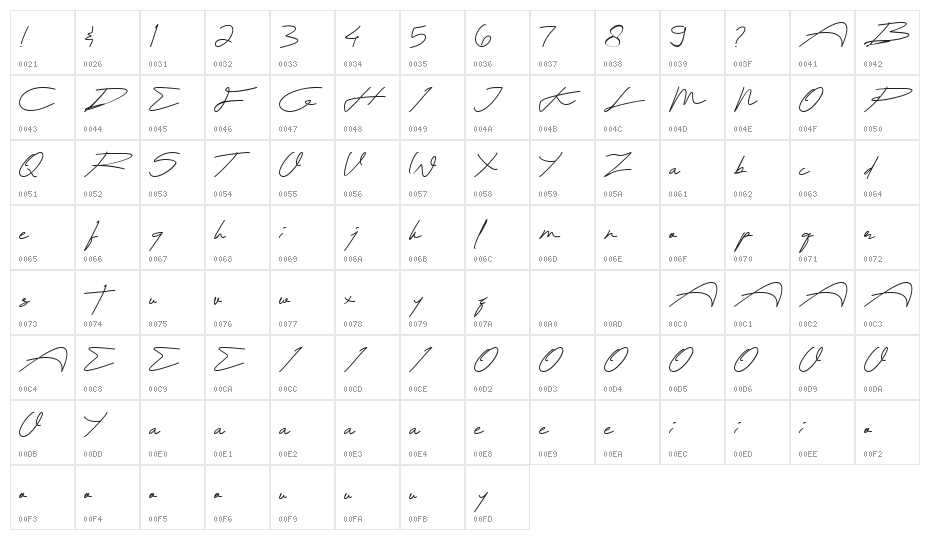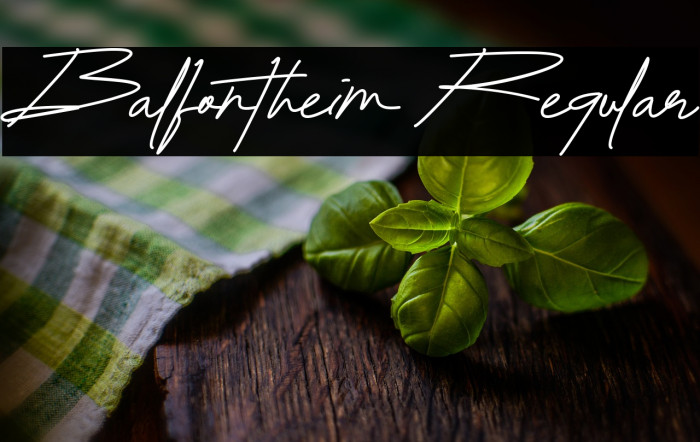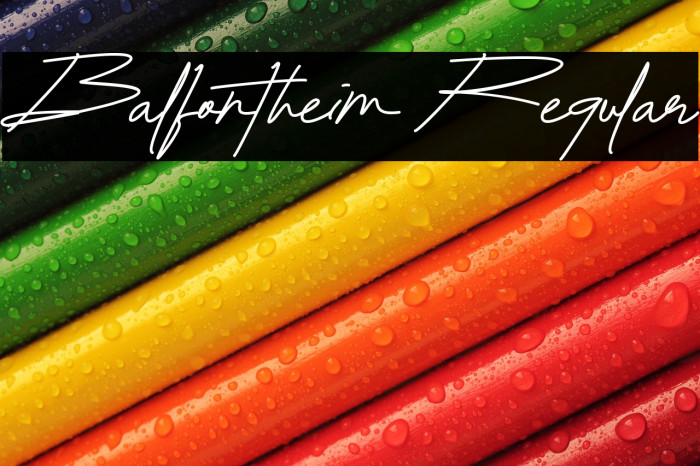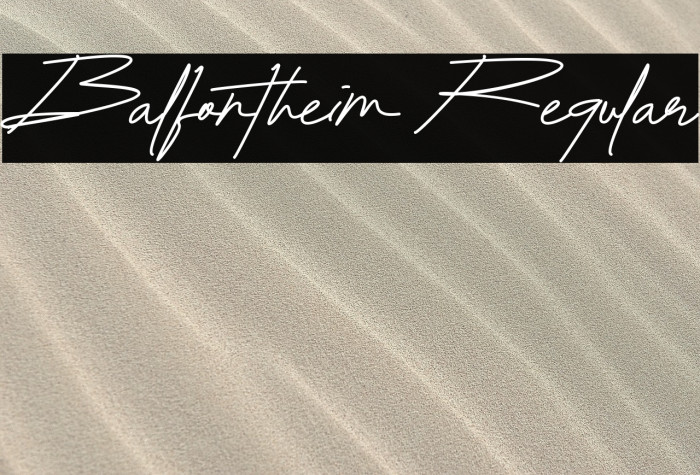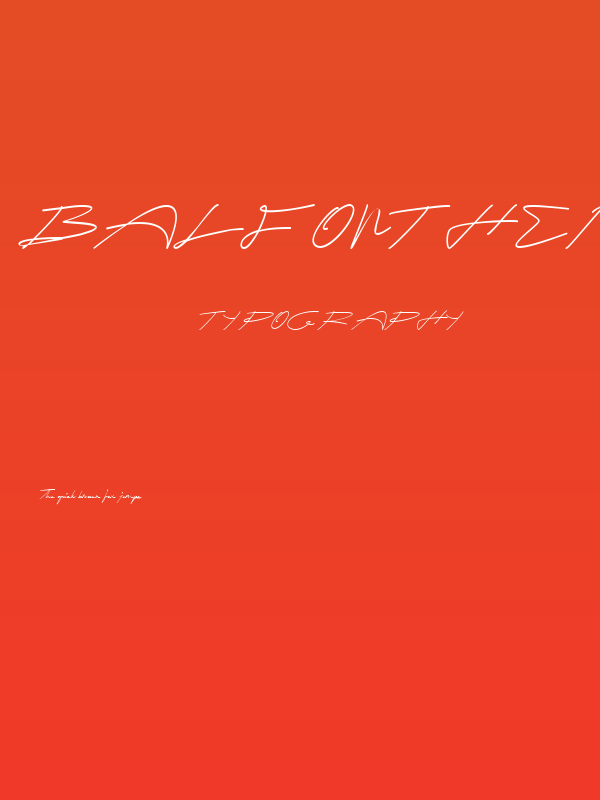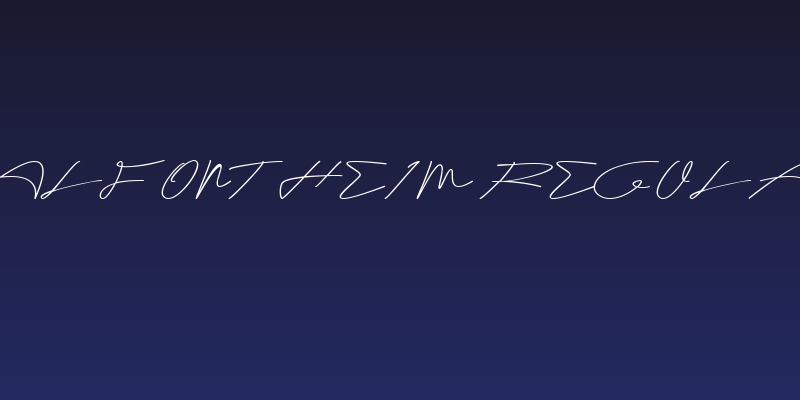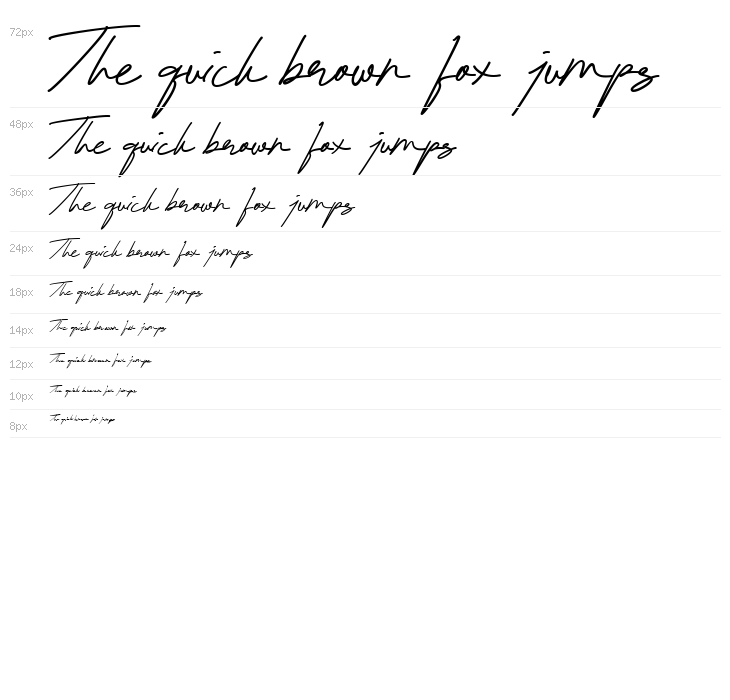
Balfontheim Regular Font
Balfontheim Regular Description
This font exudes a casual and fluid handwritten style, characterized by its elegant and flowing script. The letters are connected in a seamless manner, giving it a natural and personal touch. The strokes vary in thickness, providing a dynamic and lively appearance. The uppercase letters maintain a consistent height, while the lowercase letters exhibit a playful and slightly irregular baseline, enhancing its handwritten charm. The numerals are clear and legible, complementing the overall aesthetic. Special characters are integrated smoothly, maintaining the font's cohesive look.
| Overall Style | Casual, Elegant |
| Proposed Projects | Ideal for personal invitations, greeting cards, branding projects, and creative design works that require a personal touch. |